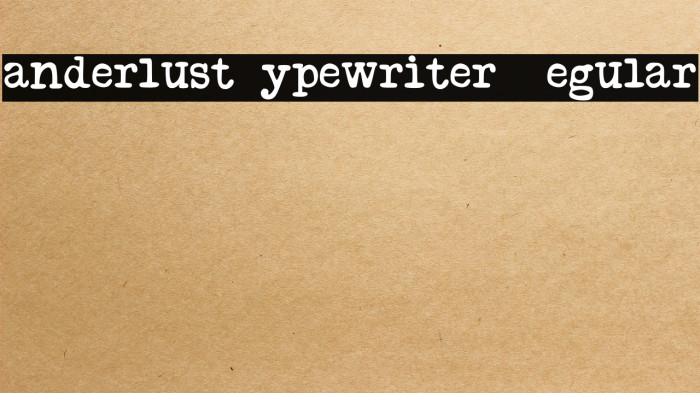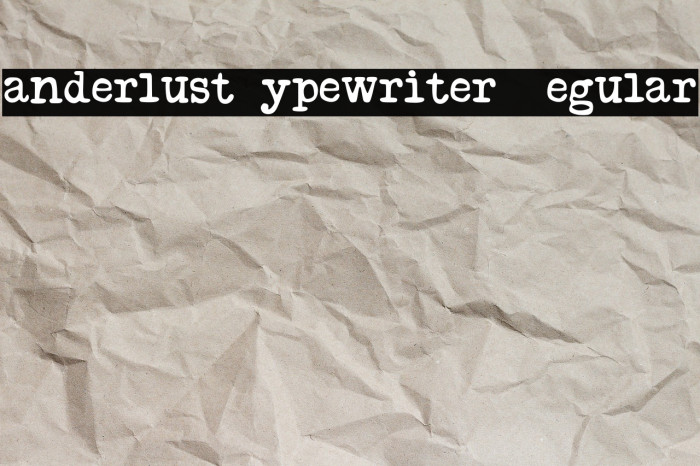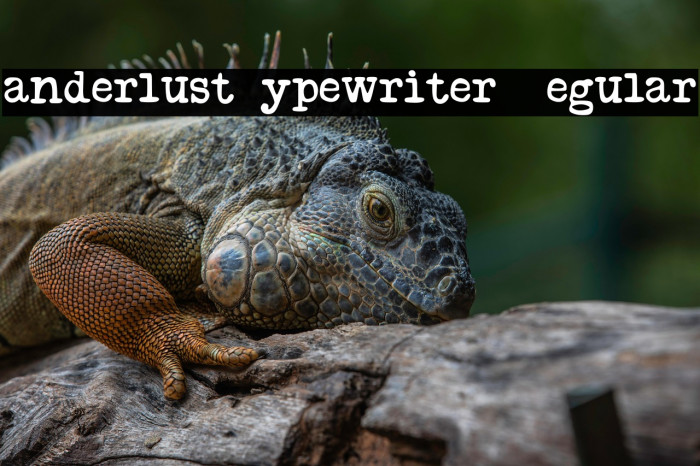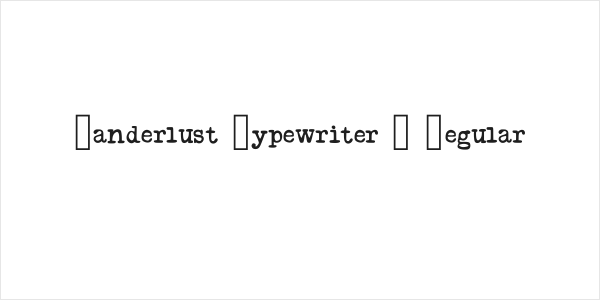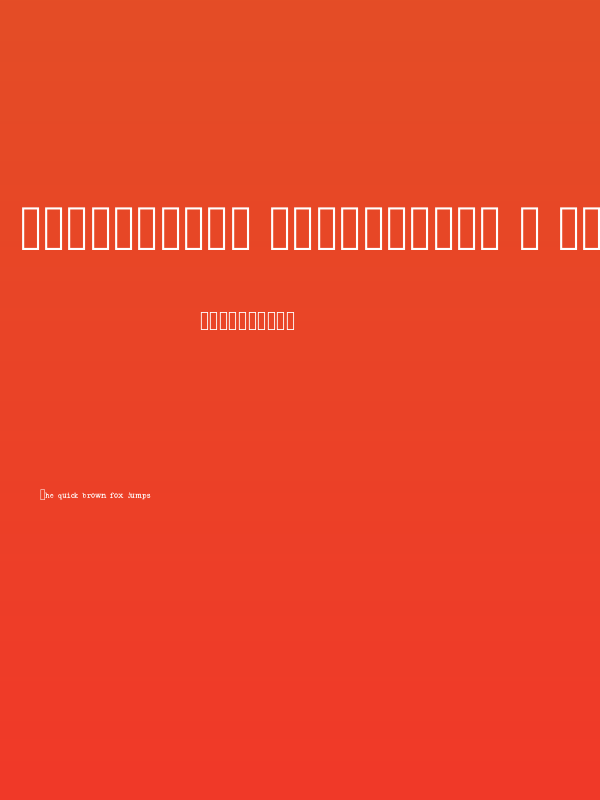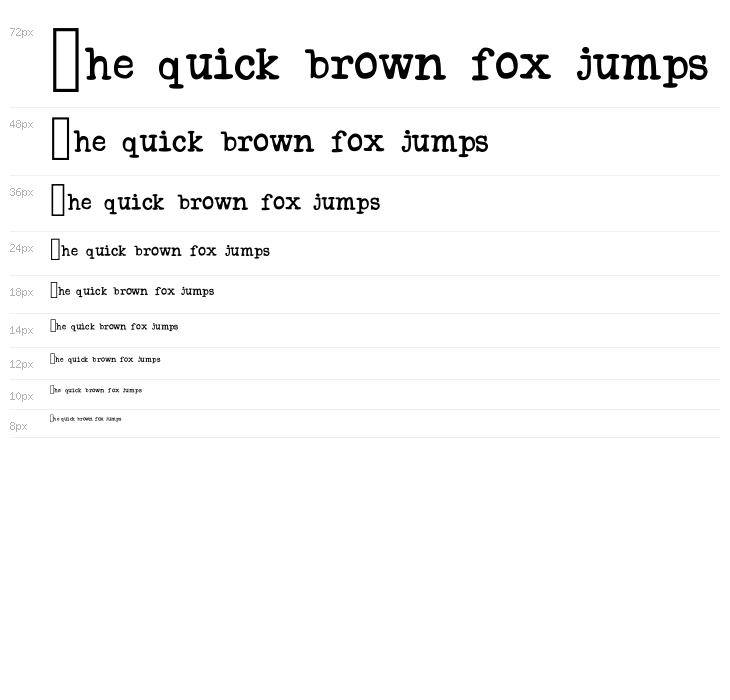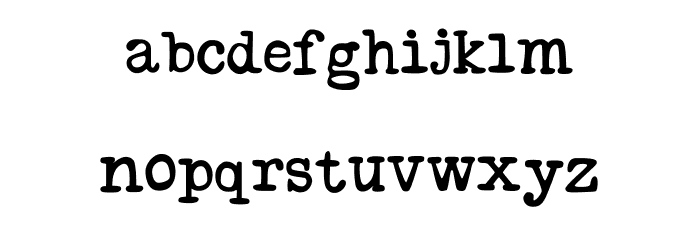
Wanderlust Typewriter D Regular Font
Wanderlust Typewriter D Regular Description
This font exudes a vintage charm reminiscent of classic typewriter styles. Each character is crafted with a slightly uneven baseline, adding a touch of authenticity and nostalgia. The rounded edges and subtle imperfections in the letterforms give it a warm, approachable feel. It captures the essence of old-school typing machines, making it ideal for projects that require a retro or handcrafted aesthetic. The lowercase letters are particularly distinctive, with their unique curves and spacing that evoke a sense of history and personality.
| Proposed Projects | Ideal for vintage-themed designs, retro posters, personal journals, and creative writing projects. |